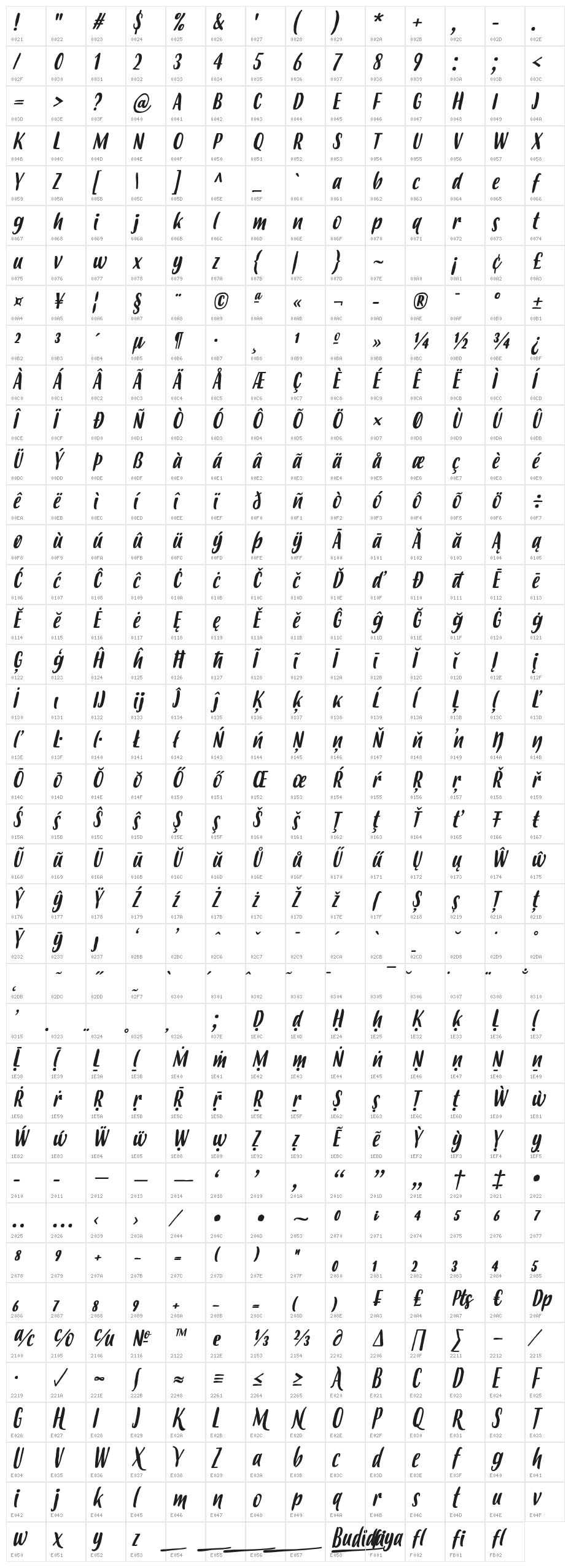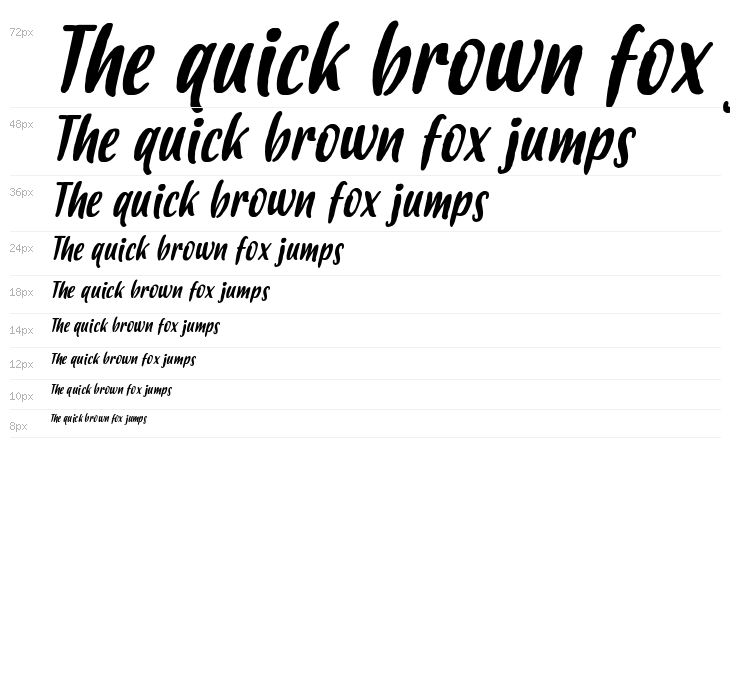
Budidaya Italic Font
Budidaya Italic Description
This font features a dynamic and expressive style, characterized by its italicized, handwritten appearance. The letters are bold and slightly condensed, with a smooth flow that mimics natural handwriting. The uppercase letters maintain a consistent height, while the lowercase letters have a playful, slightly exaggerated form. The numbers and special characters are designed to complement the alphabet, maintaining the same bold and fluid style. The overall look is energetic and modern, making it suitable for projects that require a personal touch.
| Proposed Projects | Ideal for branding, invitations, greeting cards, and any project that requires a personal and energetic touch. |